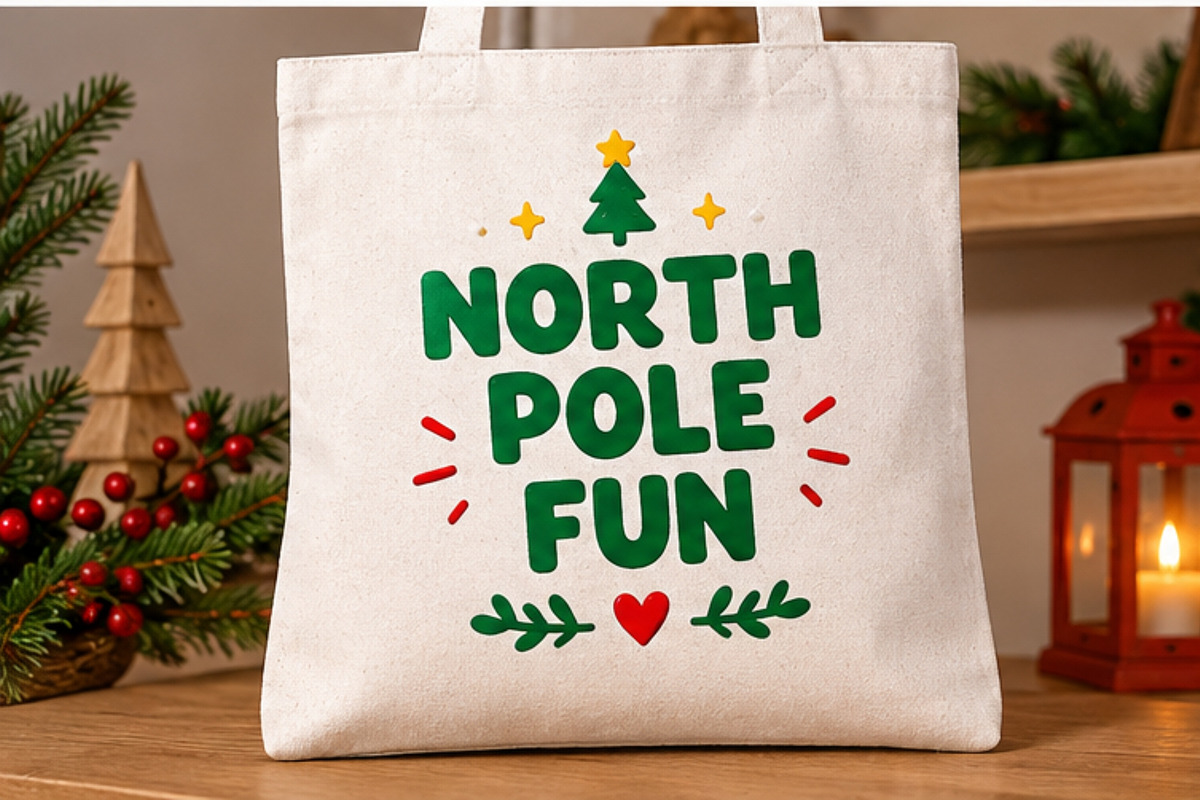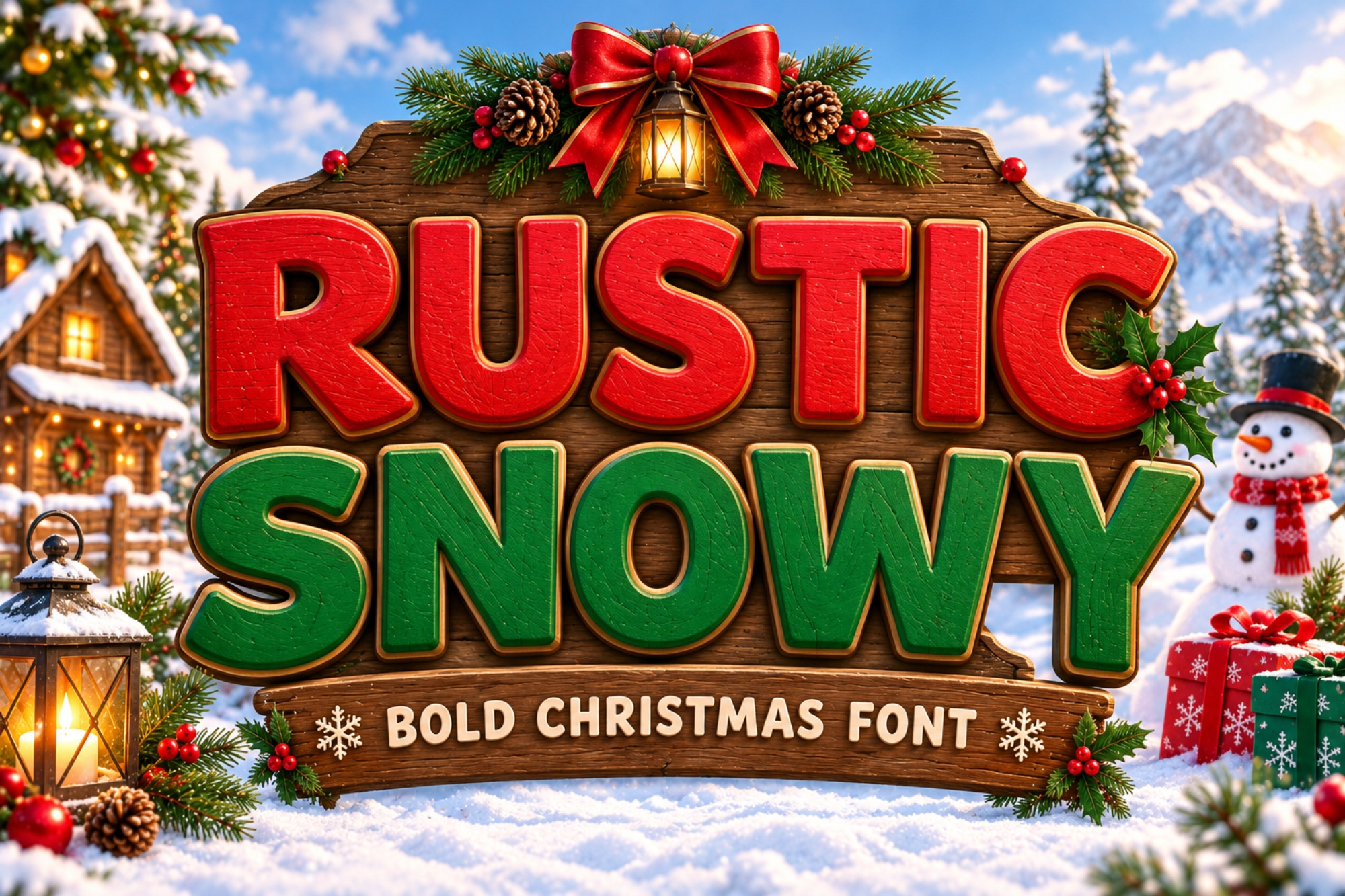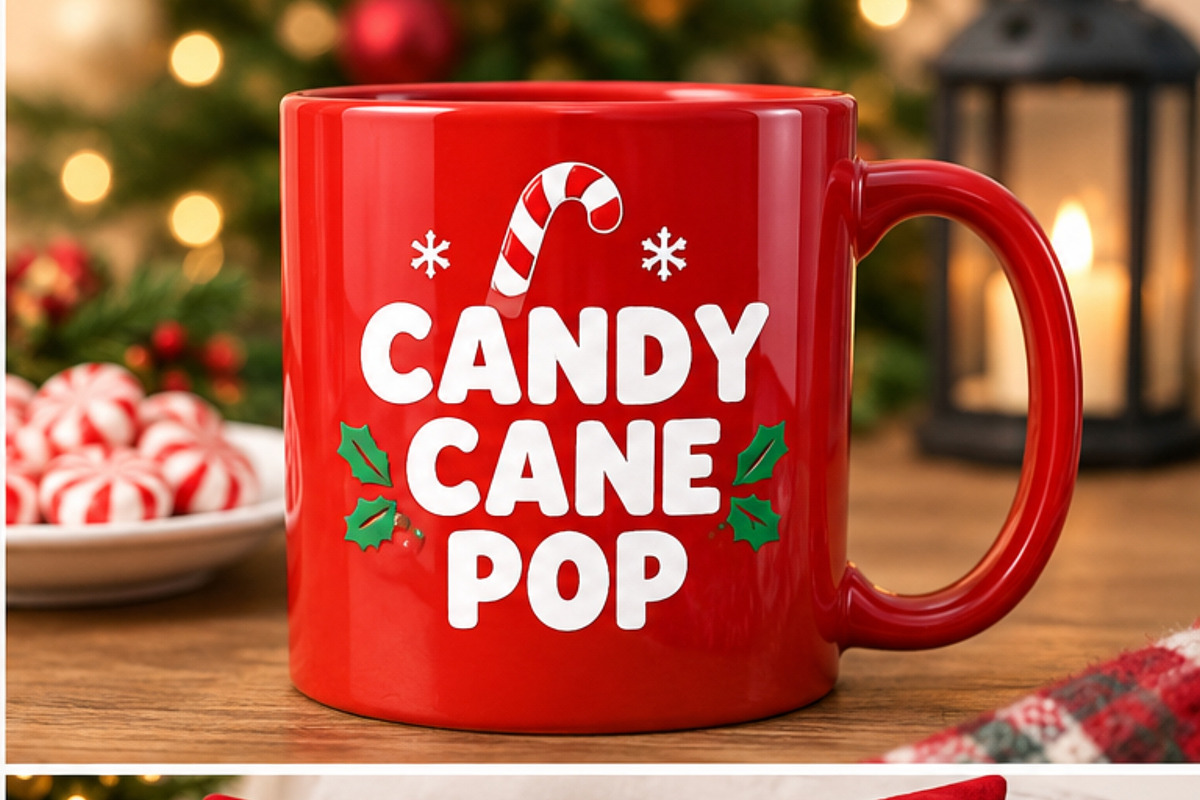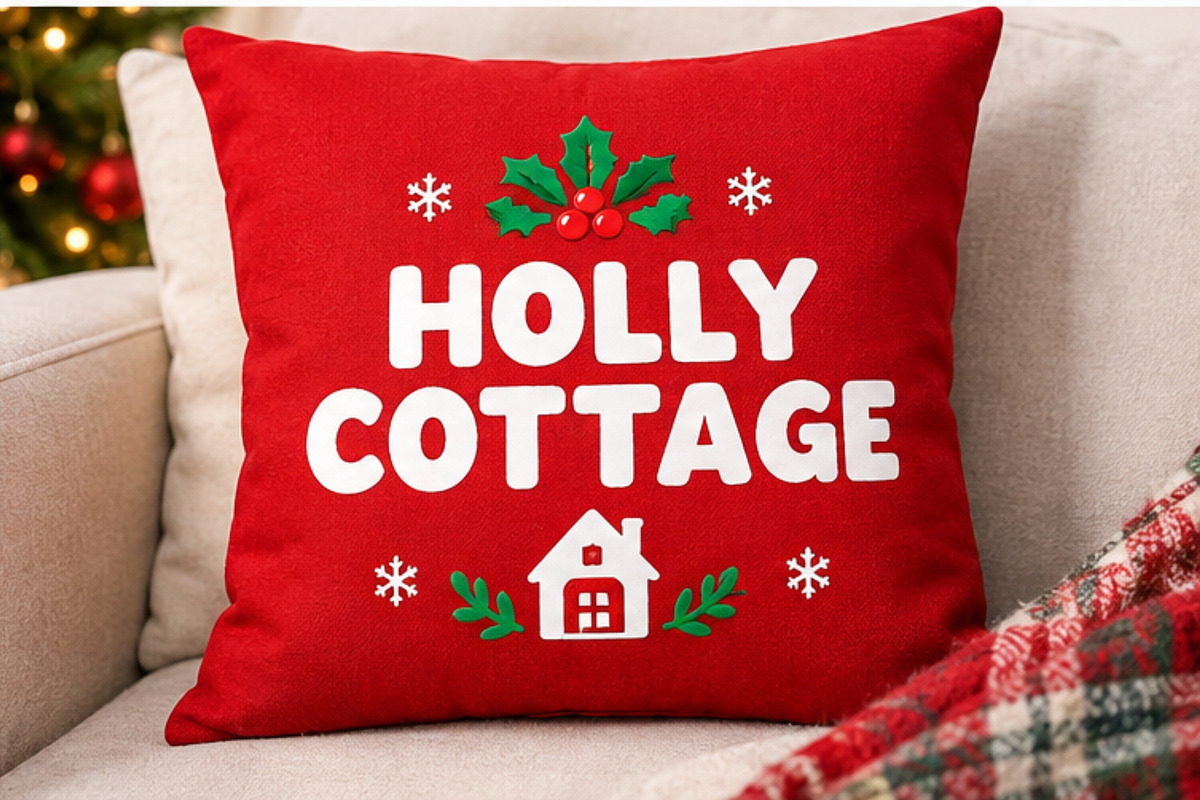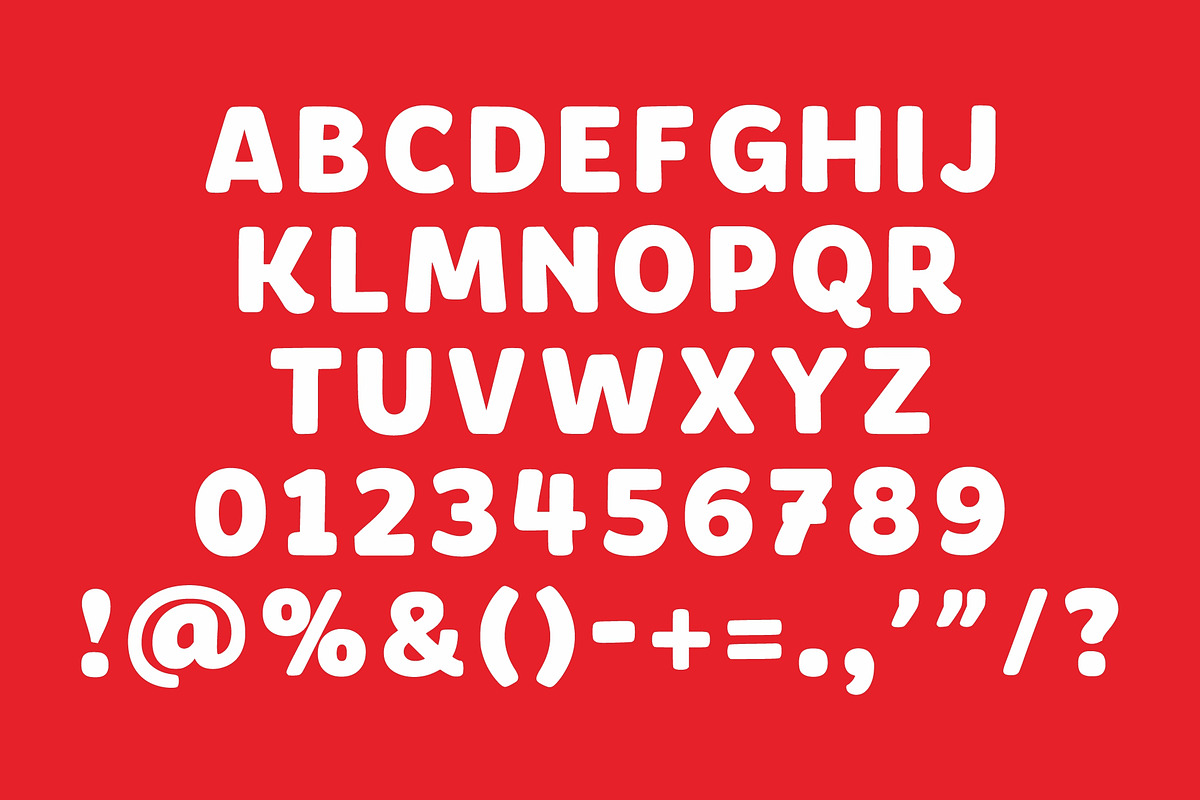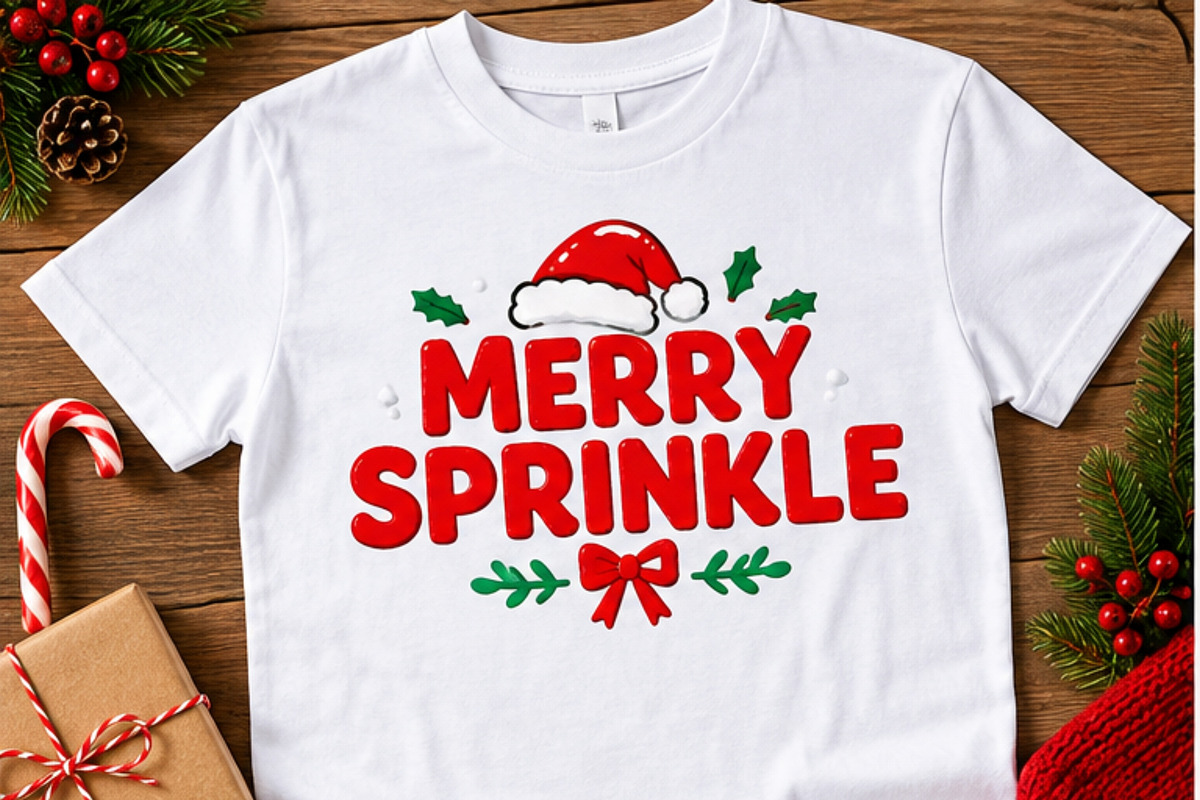
Rustic Snowy - Bold Christmas Font
Rustic Snowy Font is a fun and bold Christmas display typeface designed to bring a cheerful, cozy, and rustic feeling to your holiday projects. Its chunky rounded letterforms create a strong visual impact while maintaining a friendly and playful appearance.
Perfect for Christmas and winter-themed designs, Rustic Snowy works beautifully for T-shirts, Christmas cards, mugs, posters, signs, stickers, invitations, gift packaging, sublimation, Cricut projects, SVG designs, and seasonal branding.
Whether you’re creating handmade Christmas gifts or festive products for your shop, Rustic Snowy adds a warm and playful holiday touch to every project.
Features – Bold & chunky letterforms – Playful rounded style – Rustic Christmas aesthetic – Strong and readable display font – Great for large headlines and typography – Suitable for personal and commercial projects – Perfect for holiday crafting and seasonal products